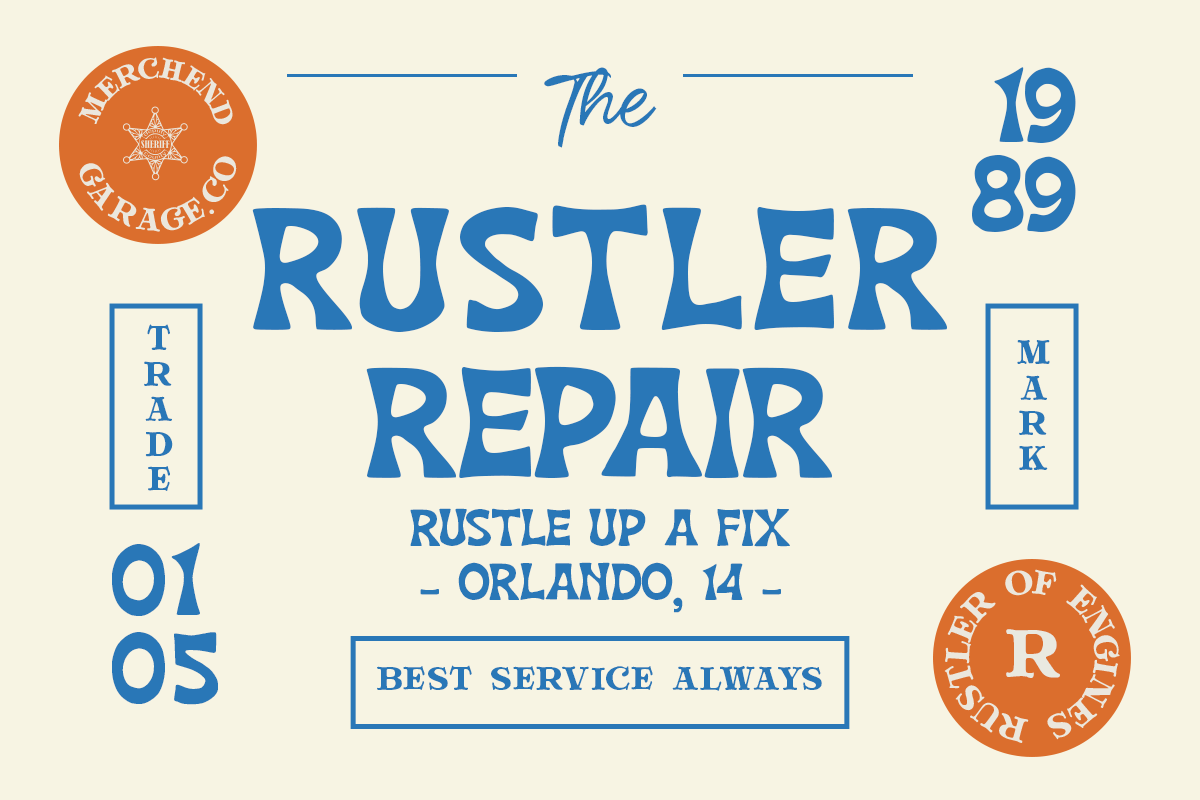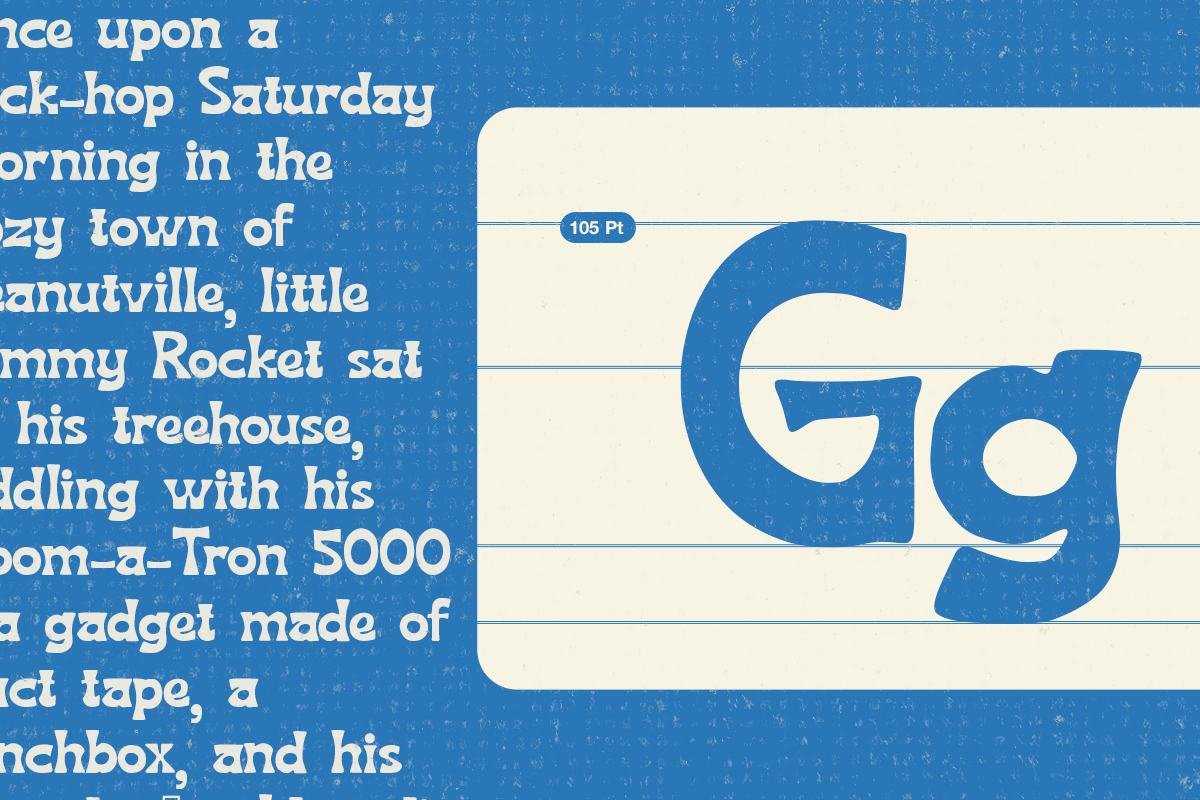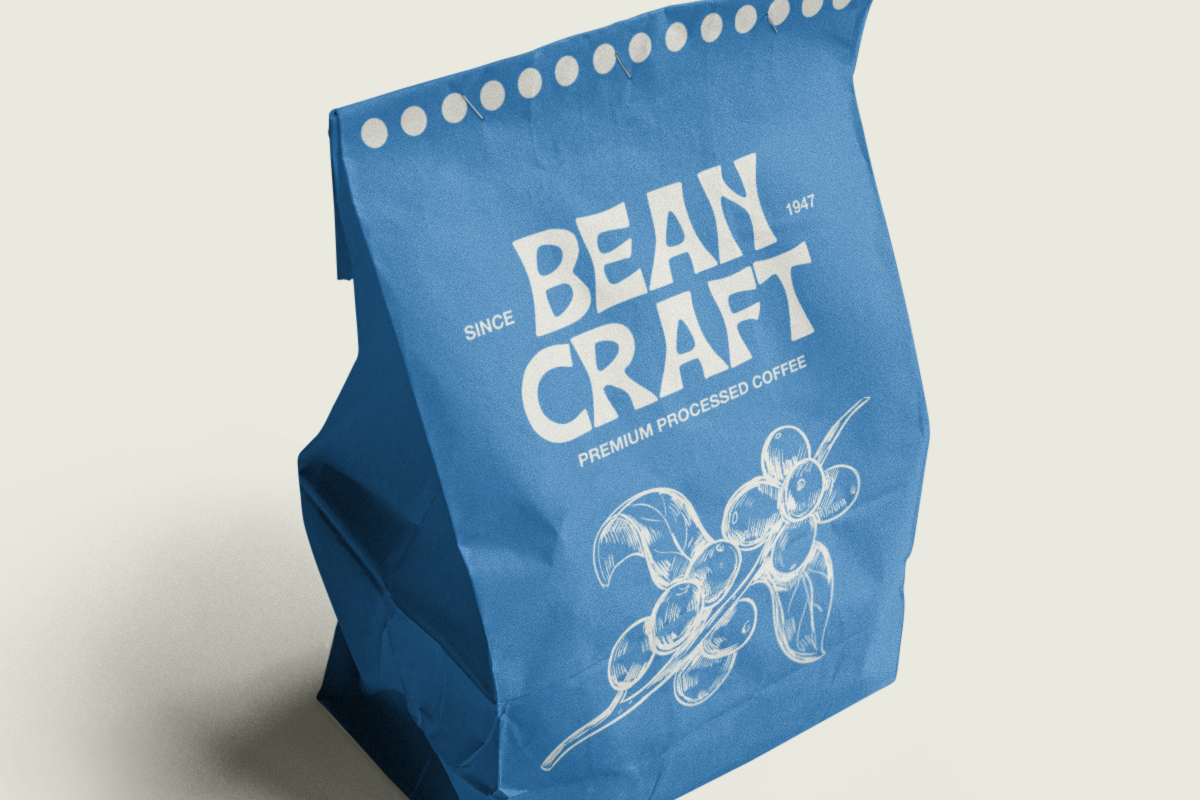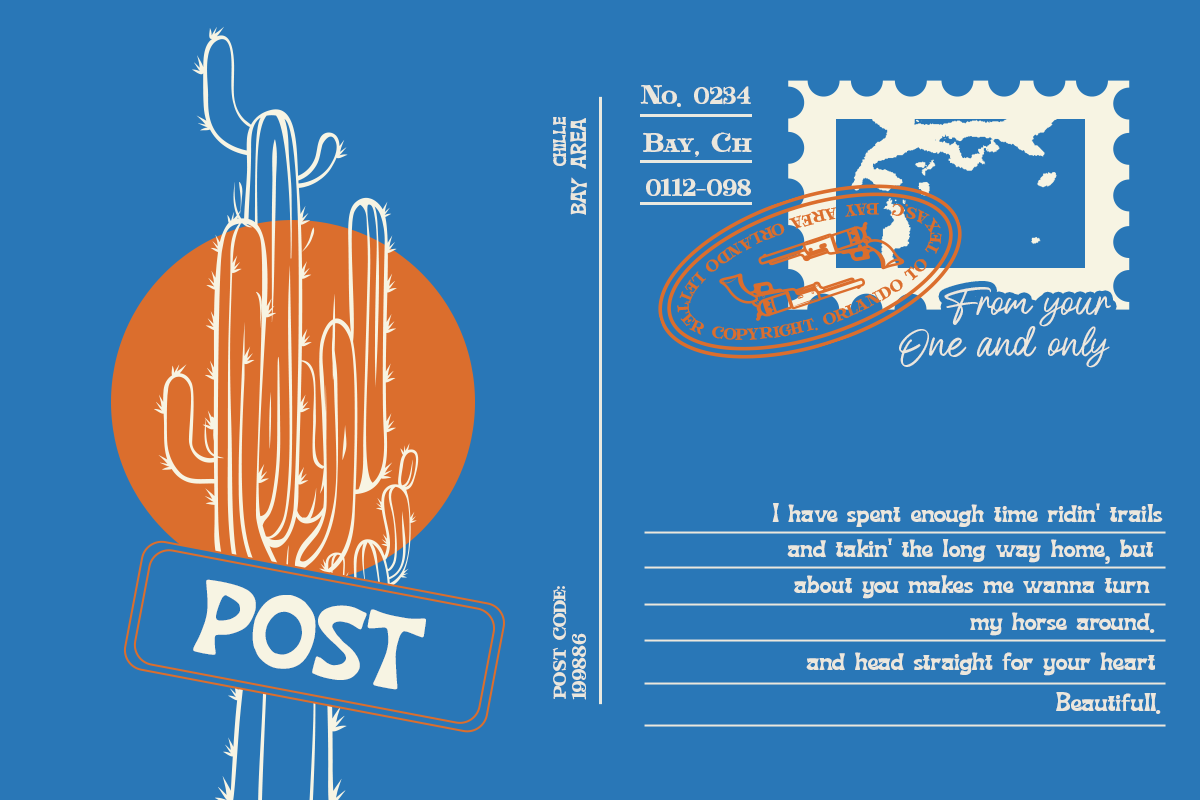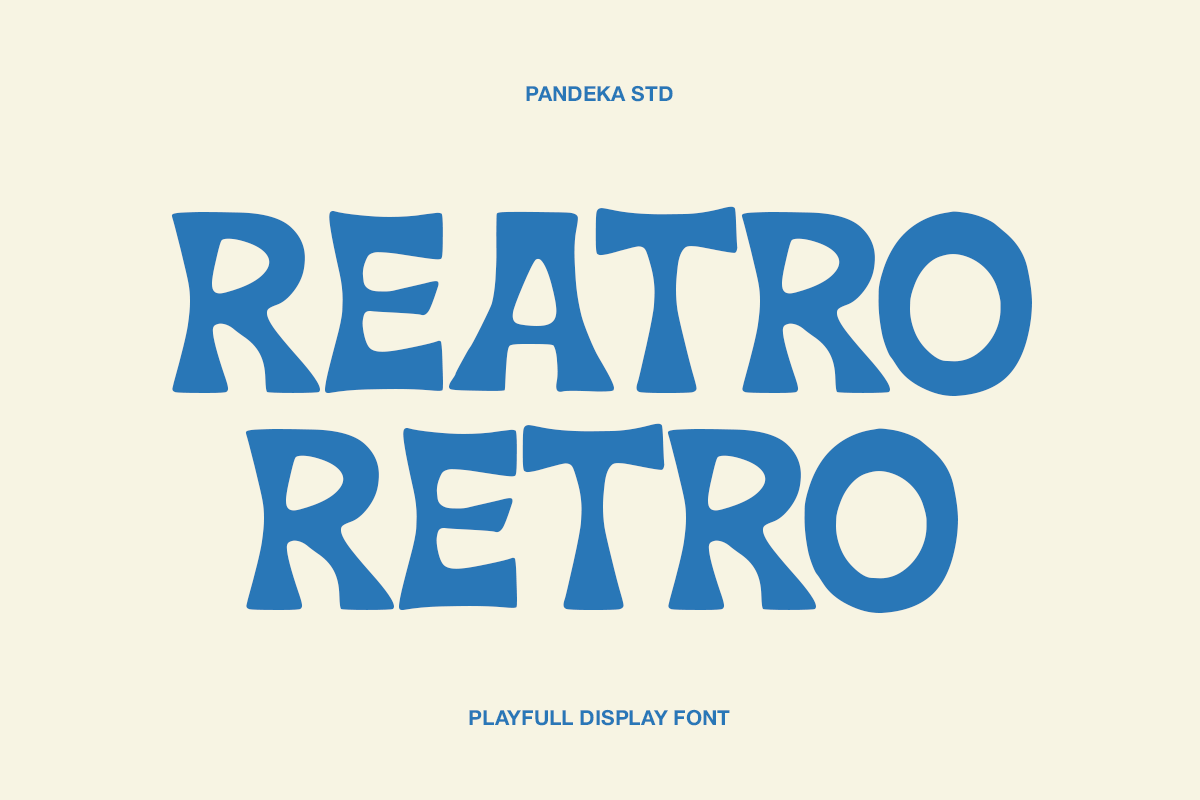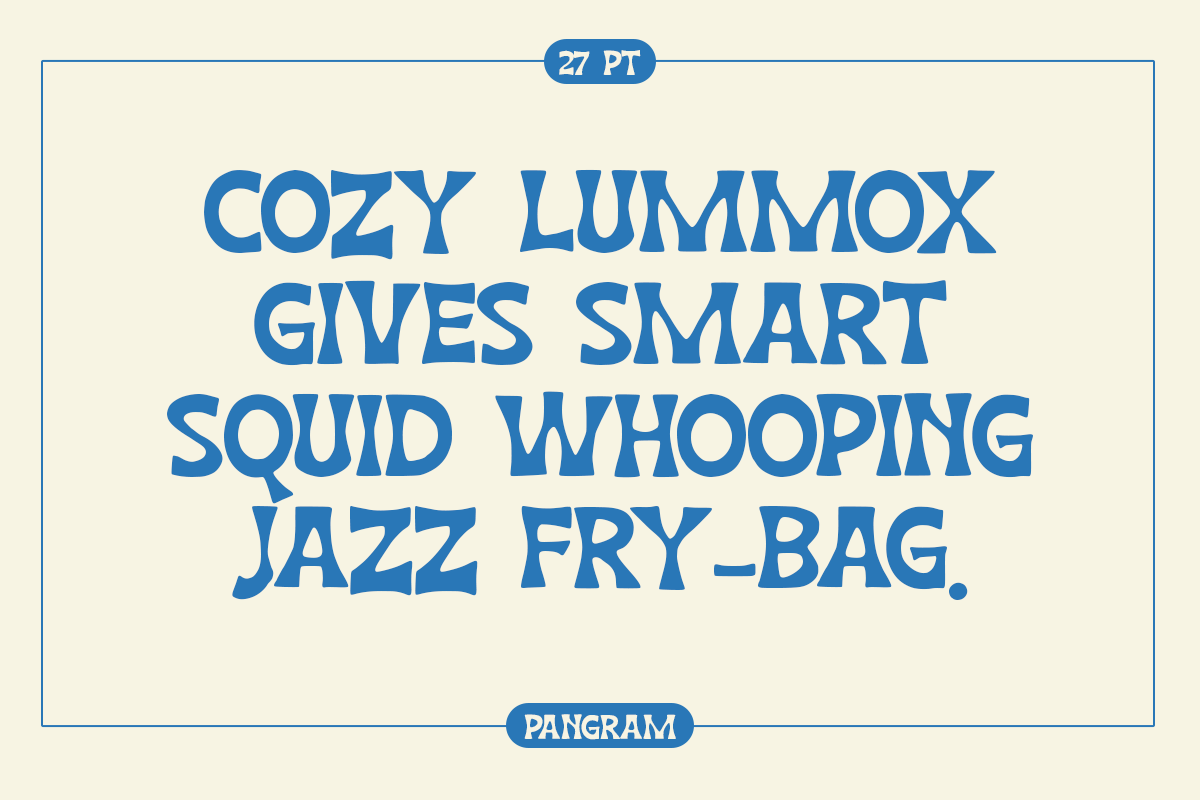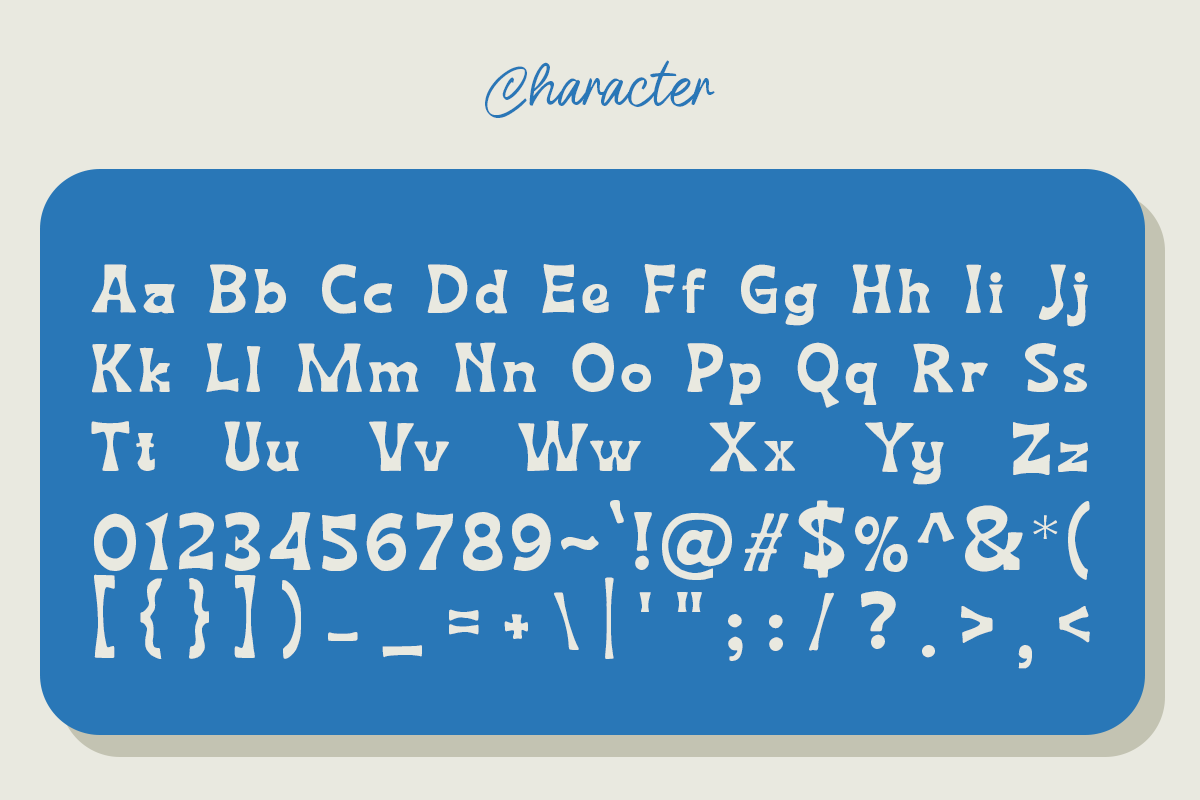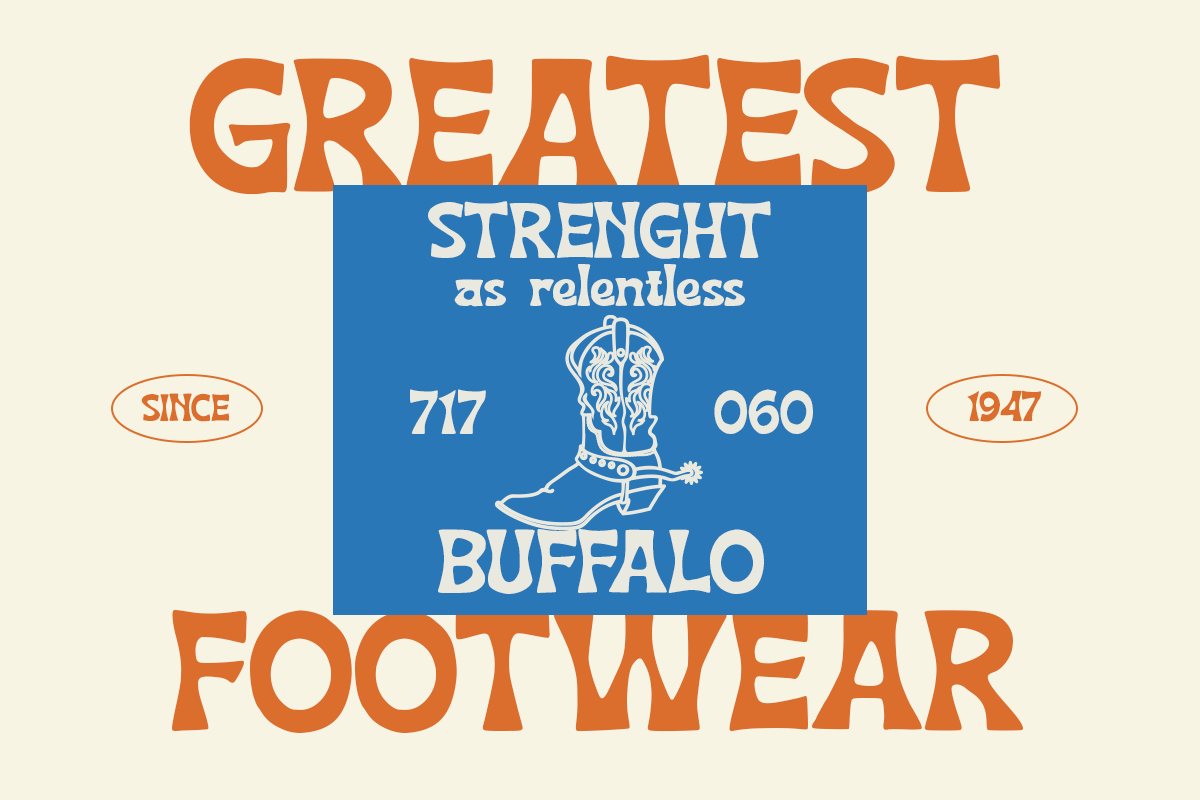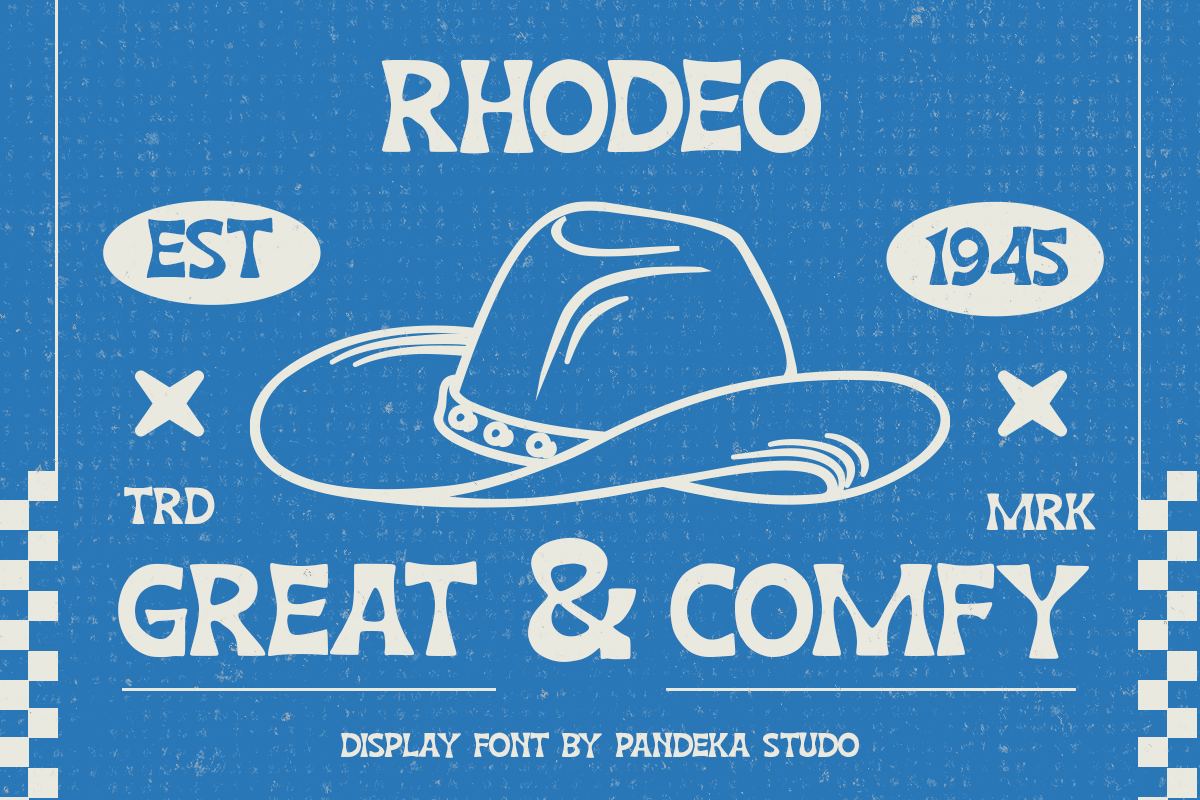
Reatro Retro - Western Font
Reatro Retro is a bold and stylish western display font that captures the perfect blend of retro groove and vintage Americana charm. Inspired by old rodeo posters and nostalgic print aesthetics, this font brings a playful yet rugged spirit to any design.
With rounded edges, thick serifs, and slightly quirky letterforms, Reatro Retro adds a sense of warmth and handcrafted authenticity. It’s ideal for branding, packaging, posters, apparel, signage, and vintage-style campaigns that want to feel both classic and cool.
- Full Character Set: Uppercase, lowercase, numbers, symbols, and punctuation
Whether you're creating for a western-themed project, retro advertisement, or music-inspired design, Reatro Retro Regular gives your visuals that bold and confident statement — full of nostalgic personality.